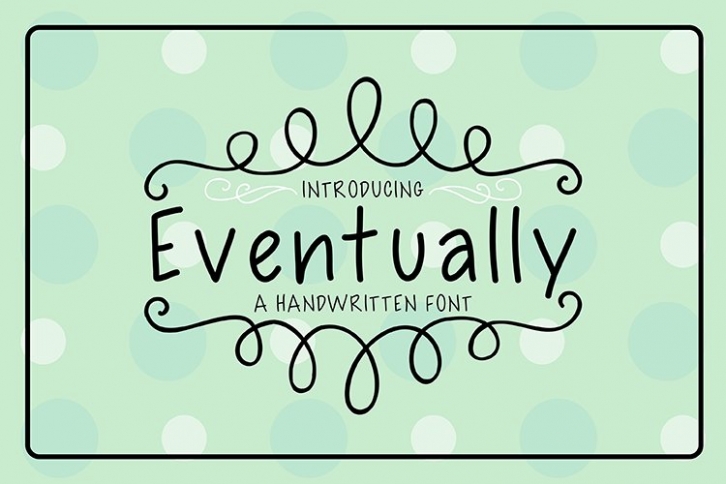
Eventually is a gorgeous font that was realeased on May 1, 2020. The font can be used in many style contexts and design environments. Perfect for invitations, magazines, websites, logos, and more! It was designed by Carrtoonz and the file size is 15.97 MB. Thanks for checking out this font!